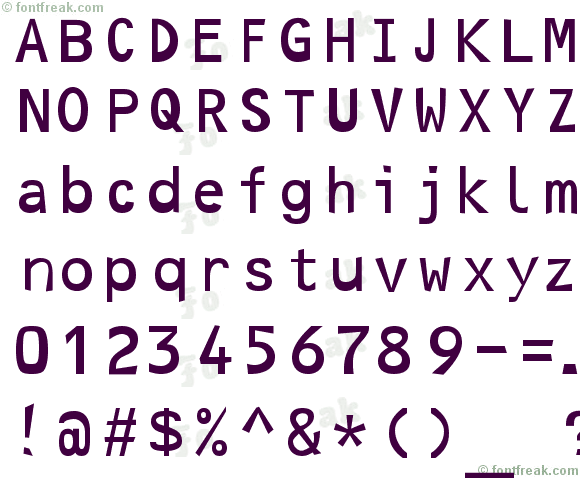
Hoptical
About Hoptical
Hoptical is a distinctive display font designed by Stickfonts, characterized by its playful and modern aesthetic. As a decorative typeface, it features unique letterforms that capture attention while maintaining readability. The font showcases a medium stroke weight with subtle variations that add depth and personality to each character. The spacing is well-balanced, allowing for clear communication without sacrificing style. Hoptical’s design includes whimsical elements that enhance its charm, making it ideal for projects that require a touch of creativity.
This font is perfect for a variety of use cases. It shines in wedding invitations, where its unique and artistic flair adds a personal touch to special occasions. Movie posters can benefit from Hoptical’s eye-catching appeal, drawing viewers in with its distinctive style. Additionally, restaurant menus can use this font to create an inviting atmosphere, making dishes feel more appealing. Hoptical is also well-suited for branding materials, helping small business owners establish a memorable identity. Content creators looking to enhance their digital graphics will find this font to be a versatile addition to their toolkit.
What makes Hoptical stand out is its balance of fun and functionality. It breaks away from conventional typography while still being practical for everyday use, making it an excellent choice for those looking to make a statement in their designs.